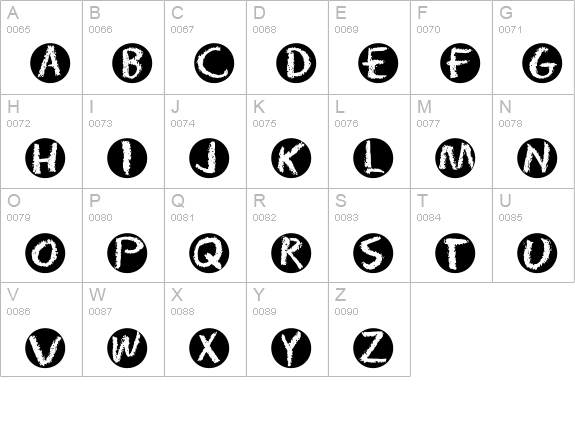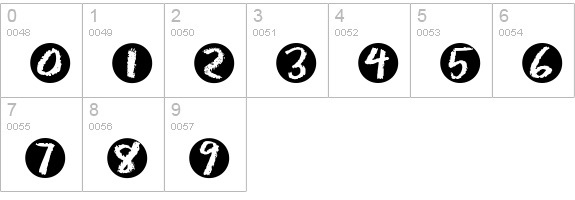
PostIt Font Details
PostIt font is a playful and modern typeface that exudes creativity and charm. With its unique style and quirky details, this font is perfect for adding a touch of fun to your designs. Whether you're working on a poster, flyer, or social media graphic, PostIt font will surely make your text stand out. The best part? PostIt font is completely free to download at FontsMarket.com! This means you can easily access this delightful font and use it in your projects without any cost. So why wait? Add a pop of personality to your designs with PostIt font today!